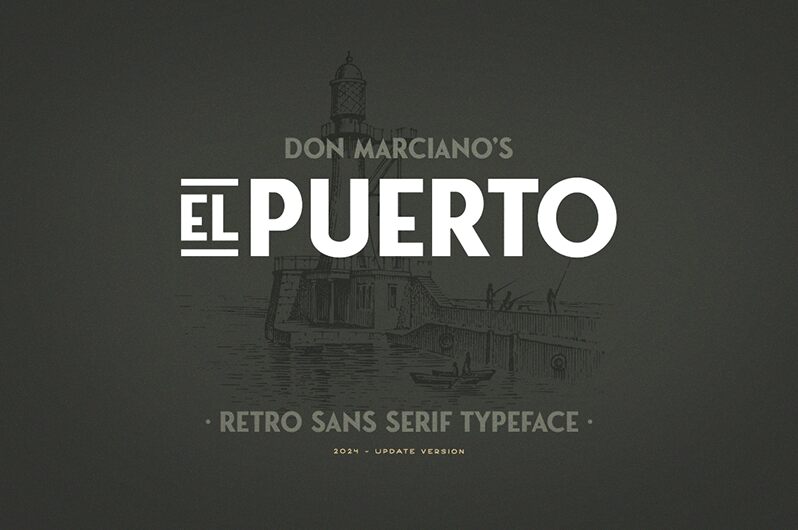
Puerto Bold
Puerto Bold stands out with its assertive presence, a creation by Don Marciano that exudes confidence through its robust and impactful style. This member of the Puerto family showcases the clean lines and readability typical of sans serif fonts, but with an added vigor that commands attention. Its boldness makes a statement without compromising on clarity, making it a versatile choice for various design needs.
Ideal for headlines, branding, and advertising where immediacy is key, Puerto Bold can deliver messages with both strength and sophistication. Whether used in print or digital media, this font is well-suited to designers seeking to make a bold impression while maintaining elegance and modernity.